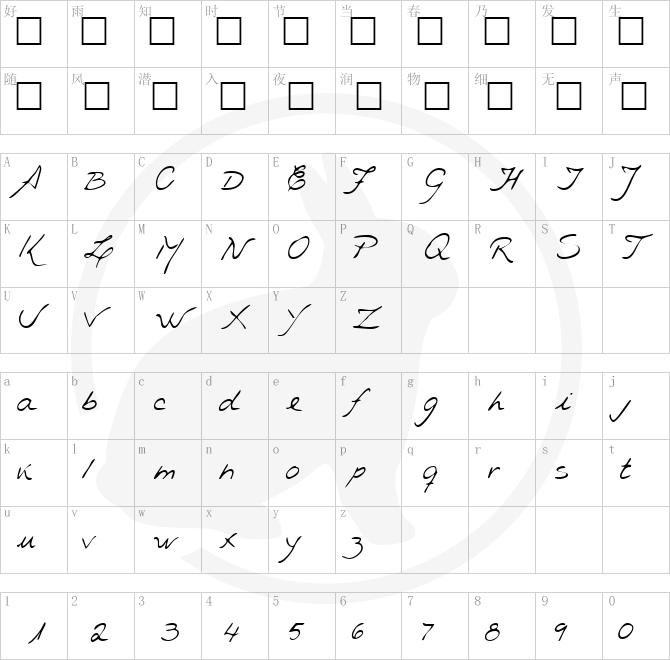
- Font Name:RachelsHand
RachelsHand-Regular-copy-2-.ttf is a very beautiful artistic font, RachelsHand-Regular-copy-2-.ttf is widely used in the design and printing of various books and pictures,RachelsHand-Regular-copy-2-.ttf has a strong visual impact,RachelsHand-Regular-copy-2-.ttf is a commonly used font in newspapers, magazines and books, and is used in posters, e-commerce Poster design, store design, logo design, font design and other fields.RachelsHand-Regular-copy-2-.